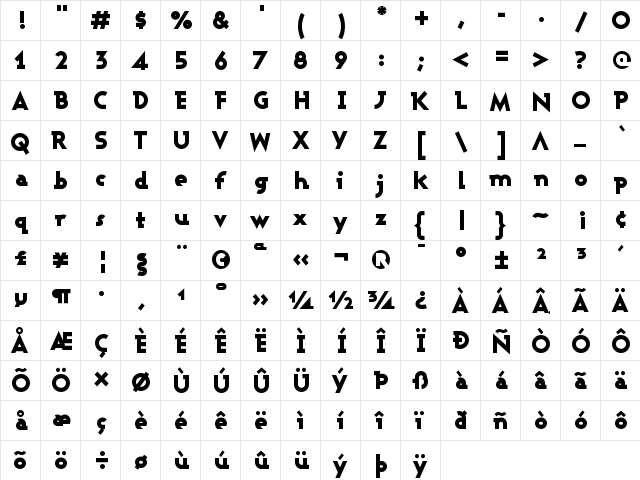
Ashby Black Regular
Design Context for Ashby Black Typeface
Ashby Black offers clean, dependable letterforms without strong stylistic allegiance, making it a practical choice for designers who need flexibility.